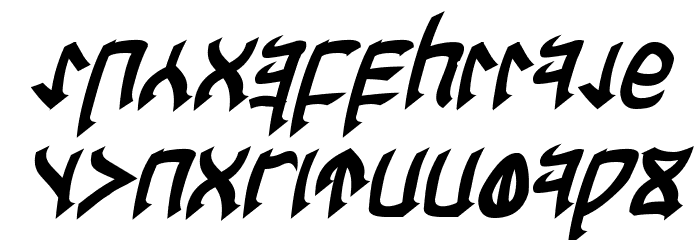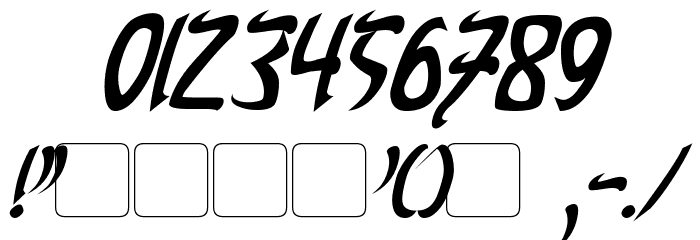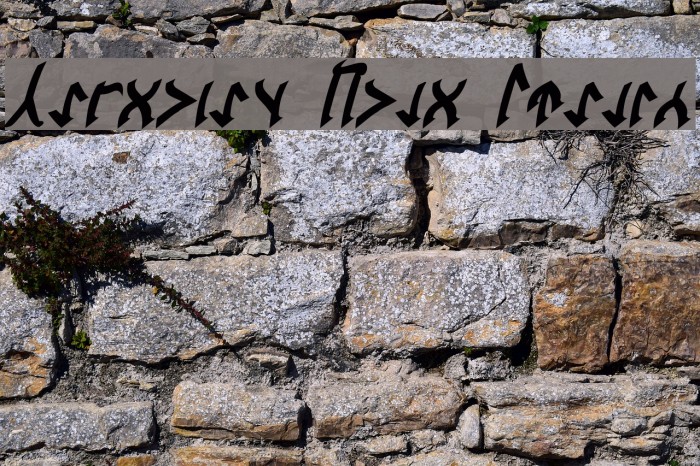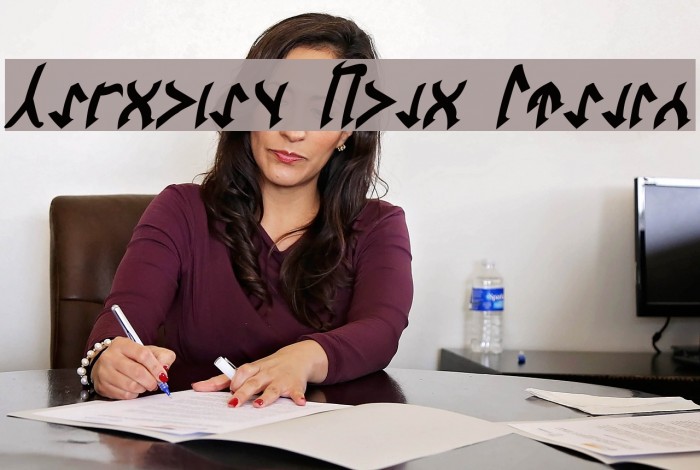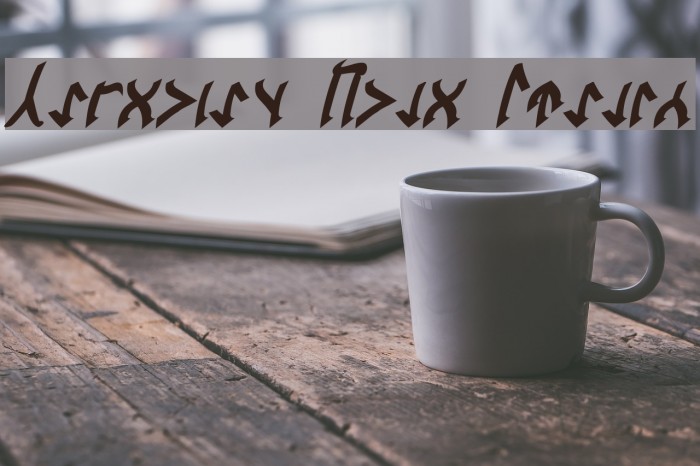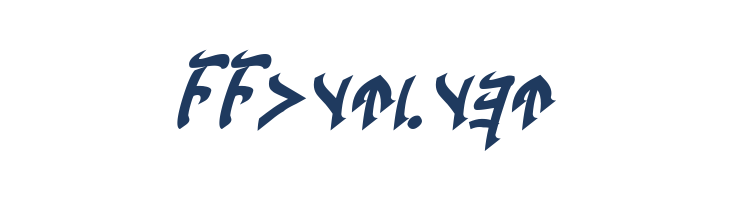
Cardosan Bold Italic Font
This font exhibits a bold and italicized style with a dynamic and energetic appearance. The characters are sharply angled and possess a strong forward slant, giving them a sense of motion and urgency. The strokes are thick and consistent, contributing to a high contrast between the thick and thin elements. The overall design is modern and somewhat aggressive, making it suitable for attention-grabbing headlines or impactful logos. The character spacing is tight, enhancing the compact and cohesive look of the text.
A bold, italicized font with sharp angles and high contrast, ideal for dynamic designs.
- Proposed Projects: This font is perfect for projects that require a bold statement, such as sports branding, action movie posters, or dynamic advertising campaigns.
- Character Spacing: Tight